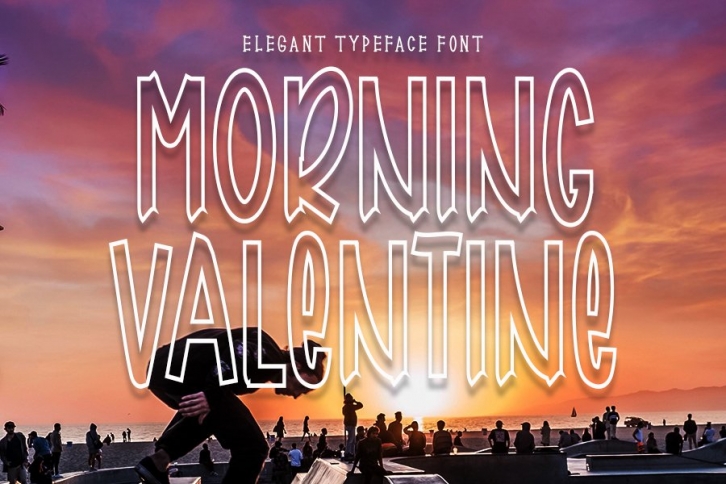
Morning Valentine - Elegant Typeface Font Download
Morning Valentine is a great font that was designed by InermediaSTUDIO. Imagine the amount of combinations you can create using this font! The archive is 13.48 MB and it was released on January 8, 2021. Morning Valentine looks beautiful on wedding invitations, greeting cards, logos, posters, labels, t-shirt designs, logos, business cards and is perfect for use in ink or watercolor works, fashion, magazines, packaging and food menus, children's books and more!